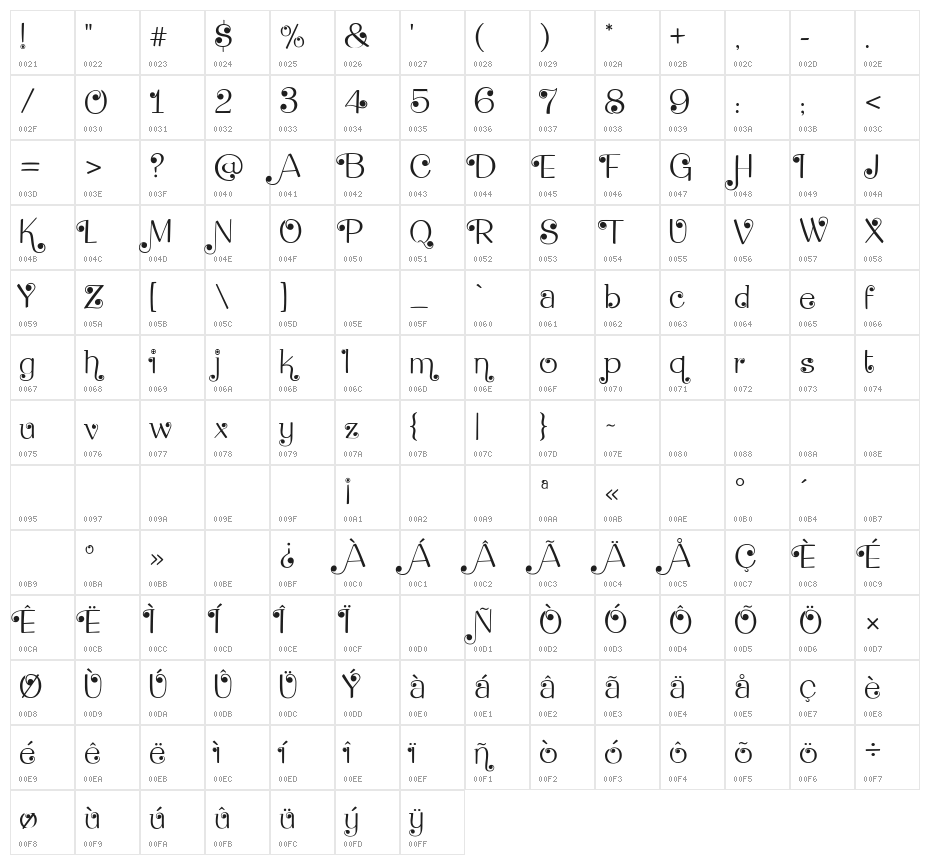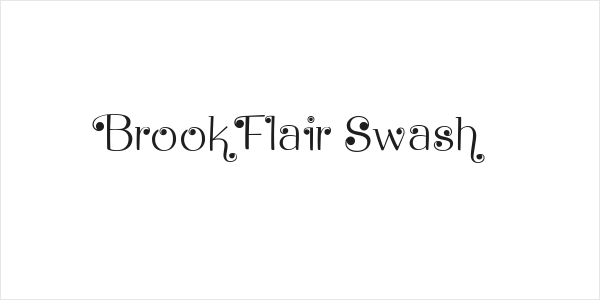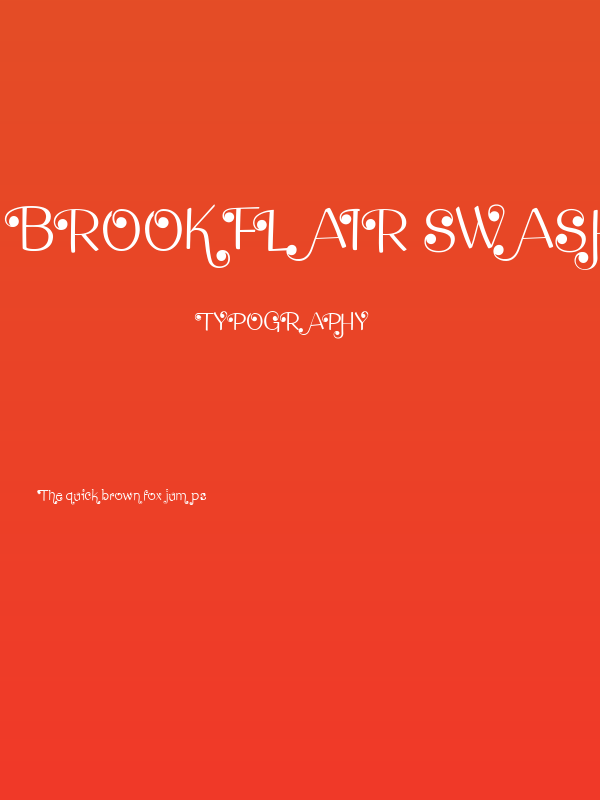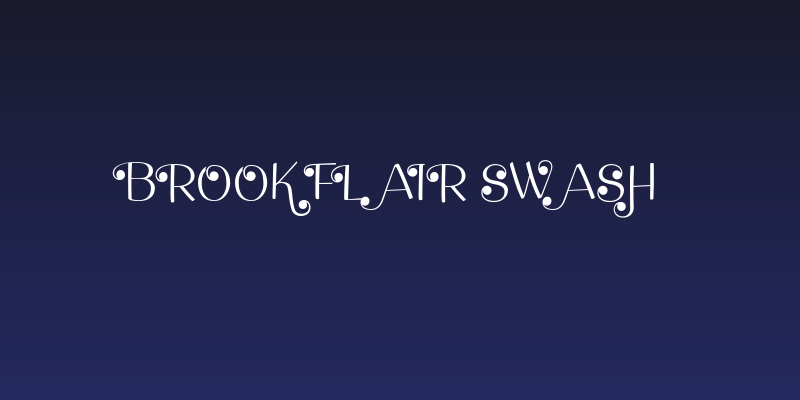
Brook Flair Swash Font
Brook Flair Swash Description
This font features a whimsical and decorative style, characterized by its unique swirls and curls that embellish each letter. The uppercase letters are bold and striking, with elegant flourishes that add a playful yet sophisticated touch. The lowercase letters maintain a consistent style, with rounded edges and intricate details that enhance their visual appeal. Numbers and special characters are designed to match the overall aesthetic, ensuring a cohesive look. This font's distinctive style makes it ideal for creative projects that require a touch of elegance and flair.